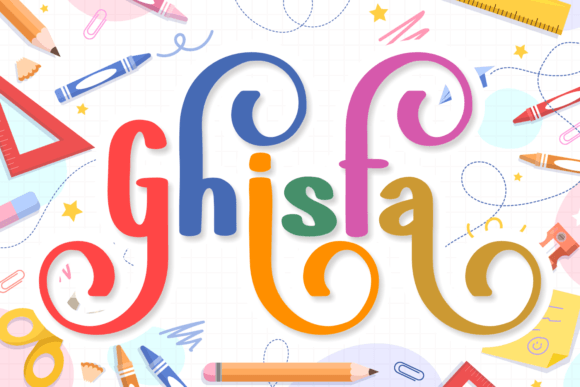
Ghisfa Font
Prepare to be captivated by Ghisfa Font, a delightful display font that will ignite your creativity with its curly and cheerful swashes. Dive into a world of playful typography and unleash your imagination like never before.
With Ghisfa Font, every design becomes an enchanting masterpiece. Its charming and whimsical characters will add a touch of magic to your logos, making them unforgettable. Craft greeting cards that convey warmth and joy, leaving a lasting impression on the hearts of your loved ones.
Let your fabric prints come alive with Ghisfa's playful swashes, creating garments that exude personality and style. Elevate your web graphics with eye-catching typography, captivating your audience with every scroll. The possibilities are endless, limited only by your imagination.
But the beauty of Ghisfa Font goes beyond its aesthetics. It's meticulously PUA encoded, granting you effortless access to all its glyphs and swashes. Unleash your creativity with ease, knowing that every detail is thoughtfully designed to enhance your designs.
Elevate your typography game with Ghisfa Font, the perfect choice for designers seeking to add a touch of enchantment to their work. Let your designs dance with joy and captivate your audience with every stroke.